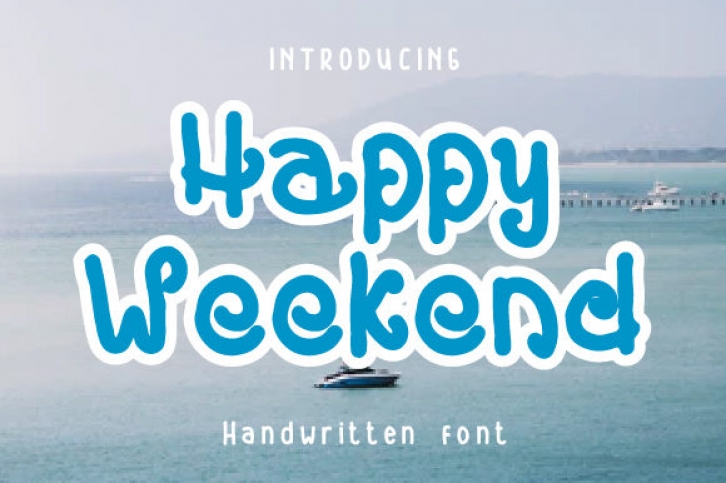
Happy Weekend is a sweet and friendly handwritten font. Its natural and unique style makes it incredibly fitting to a large pool of designs. The only limit is your imagination!